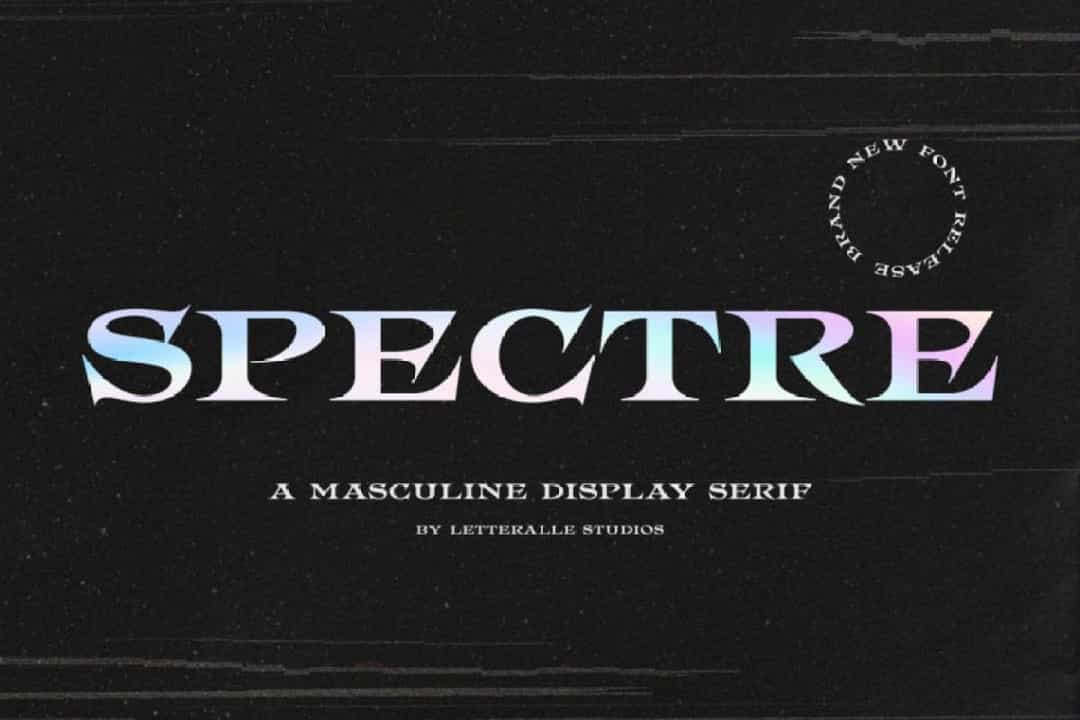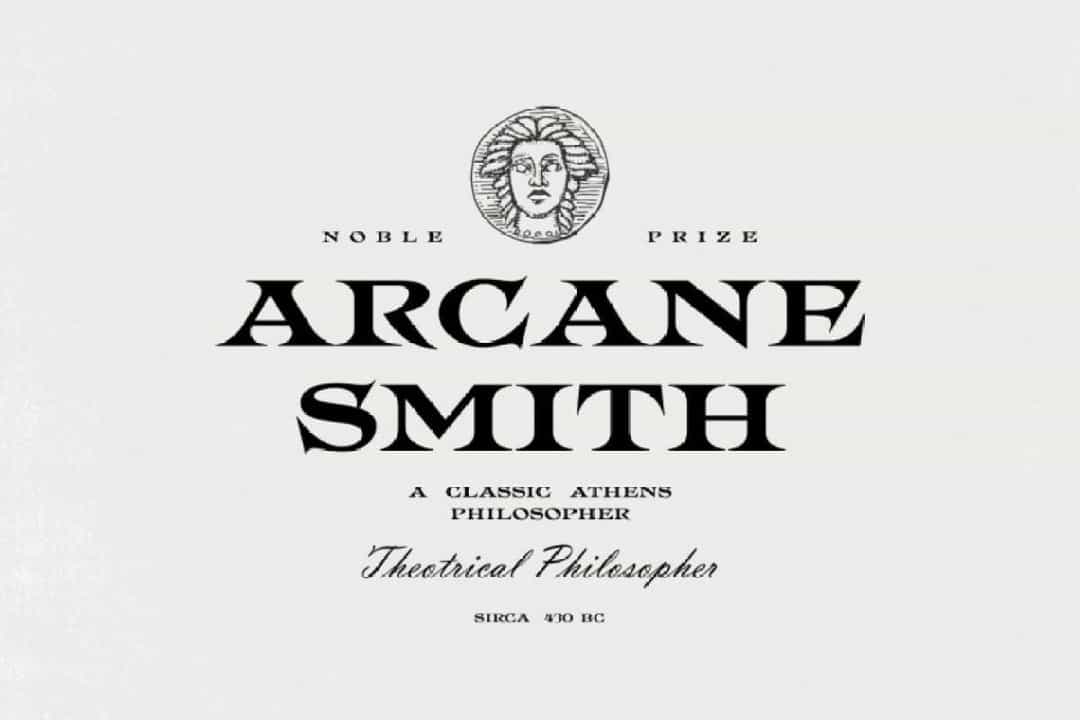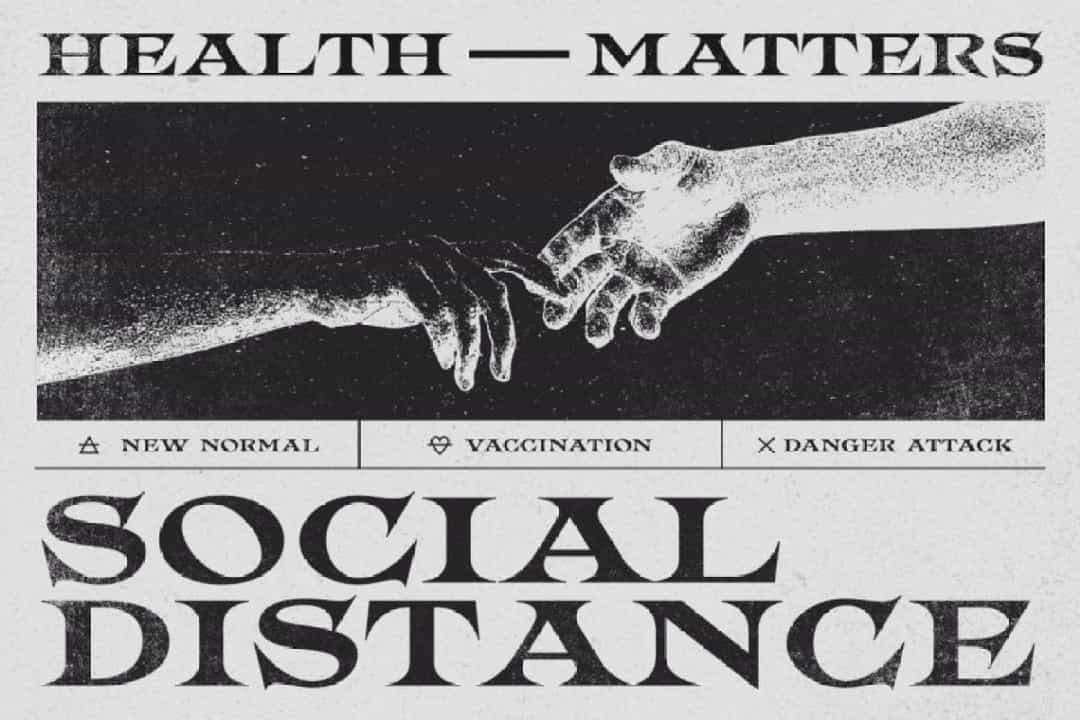
“Spectre” is an all caps serif typeface with sharp and bold designs, giving your work a striking and bold impact. Ideal for editorial work, logo design as well as Music Album Cover Artwork, Clothing Branding, Magazine Headers and product packaging or as an eye-catching text overlay for every background picture, Spectre can add fierce impact and dramatic flair.